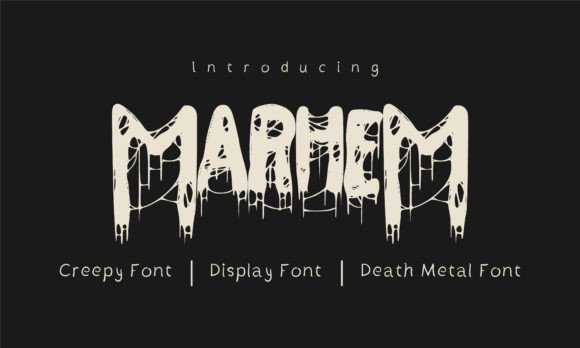
In the realm of typography, there exists a font that exudes an aura of mystique, a font that conjures visions of dark nights and spine-chilling tales – Marhem Font. This decorative font, the brainchild of the creative minds at be young, is not merely a collection of letters; it is a gateway to a world of shadows and whispers.
Enter the realm of Marhem Font, a world where your imagination runs wild, where your designs take on a life of their own. This font is not for the faint of heart; it is for those who dare to embrace the darkness, for those who seek to create designs that haunt and captivate.
With Marhem Font, you can:
- Unleash your creativity and craft horror-inspired designs that will send shivers down the spines of your audience.
- Create logos for metal bands or merchandise that radiates a raw and edgy energy.
- Craft Halloween-themed designs that are sure to make a statement and leave a lasting impression.
Marhem Font is more than just a font; it is a tool for self-expression, a medium through which you can channel your inner darkness and bring your creative visions to life. It is the perfect font for those who seek to stand out from the crowd, to make a statement, and to leave an unforgettable mark on the world.
So, if you dare to venture into the realm of shadows and embrace the dark side of creativity, then Marhem Font is your perfect companion. Unleash your inner artist and let this font guide you to new heights of design excellence.